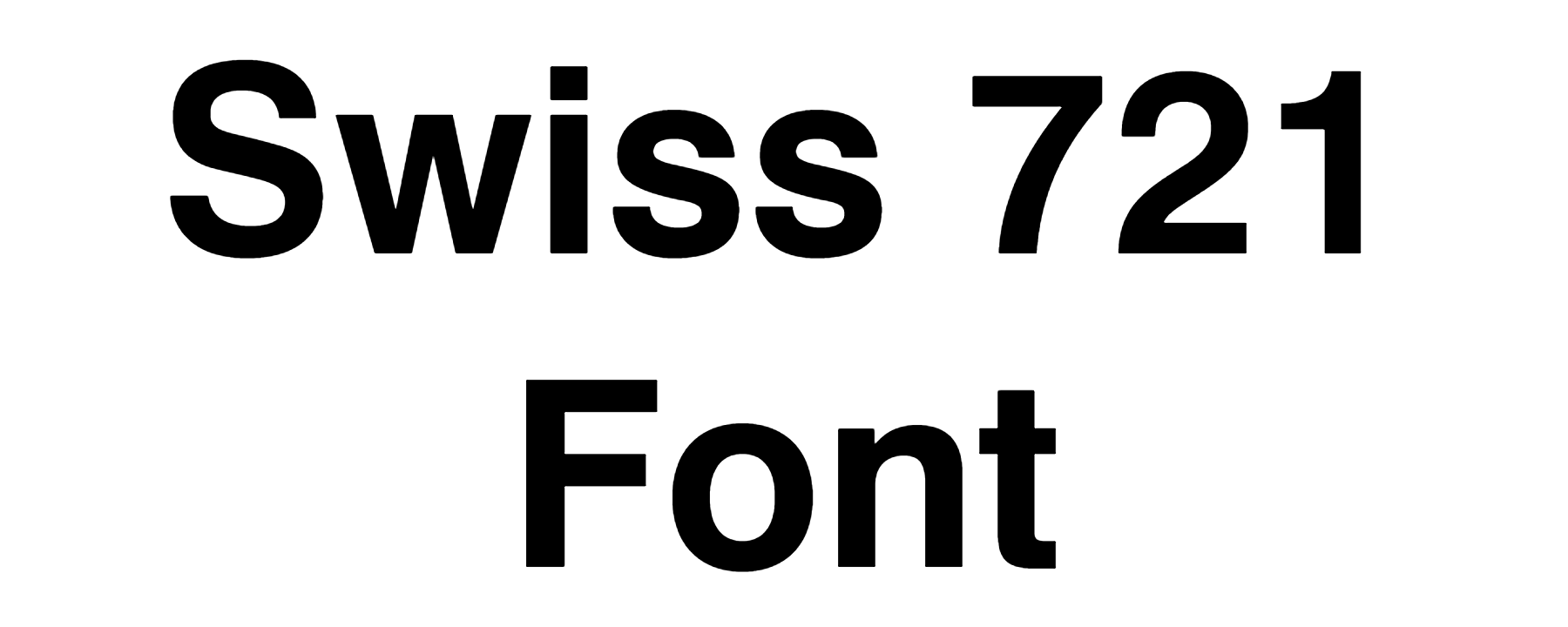
Swiss 721 Font
Swiss 721 is a highly versatile, clean sans-serif font family originally released by the digital type foundry Bitstream in 1982. Created as an official digital clone/alternative to Helvetica (originally designed by Max Miedinger), it distills mid-century modernist Swiss typography into an expansive, highly structured digital toolkit.
Swiss 721 is a sans serif font created by as an unpublished work Bitstream Inc (1992).
• Designer: as an unpublished work Bitstream Inc
• Year: 1992 (from the copyright line in the font)
• Category: Sans serif font
• Font styles: 2 (Bold and Black)
• Weights: Bold (700) to Black (900)
• Glyphs: 231 in the Bold style
• Characters: A–Z, a–z, 0–9 and basic punctuation
• Languages: English, Spanish, French, German, Portuguese and Italian
• OpenType features: Ligatures and fractions
• Kerning: None in the file